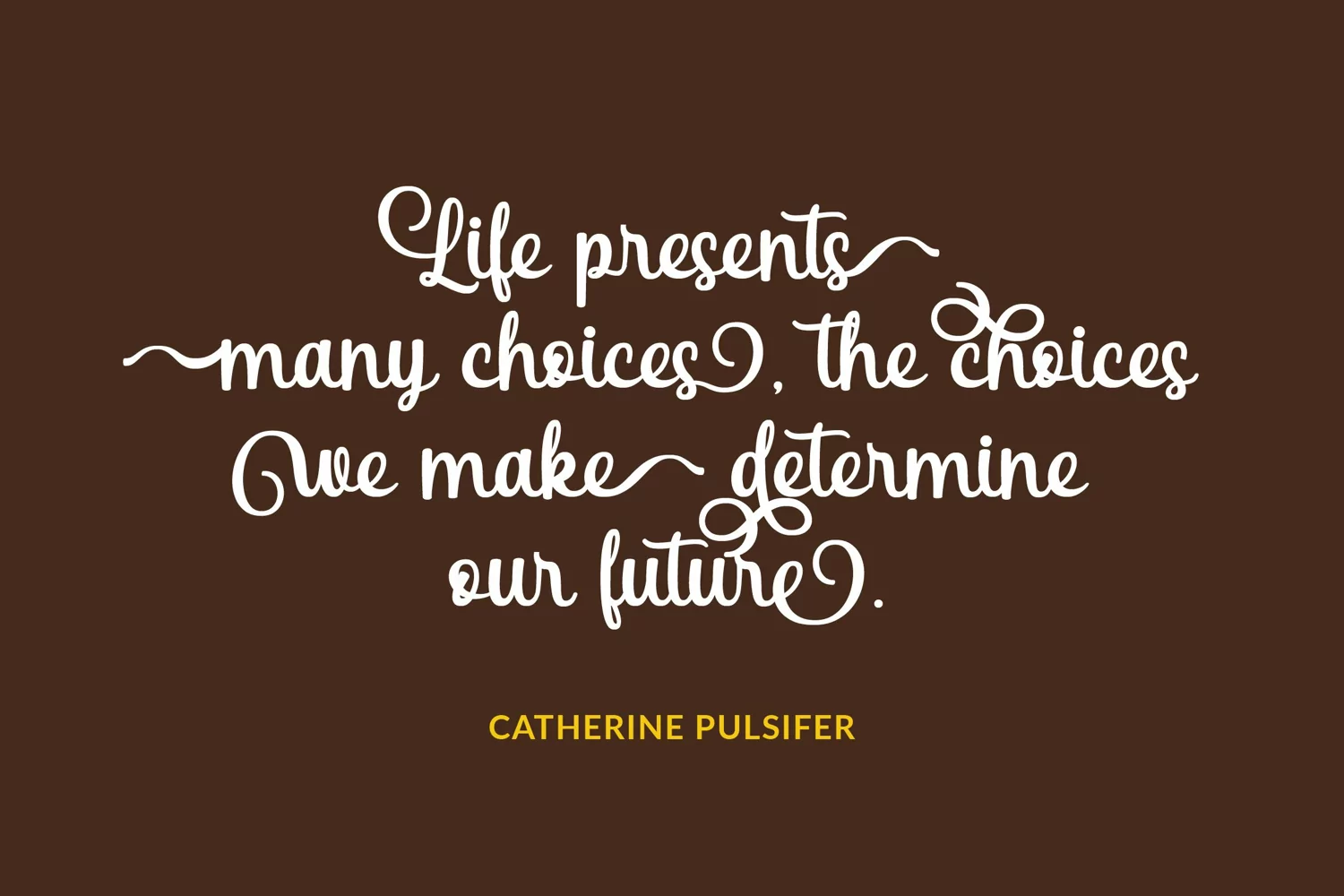
Christmas Halcyon is a beautiful and romantic handwritten font. Its distinct and well rounded letters make this font a masterpiece. This font is PUA encoded which means you can access all of the glyphs and swashes with ease!
Christmas Halcyon